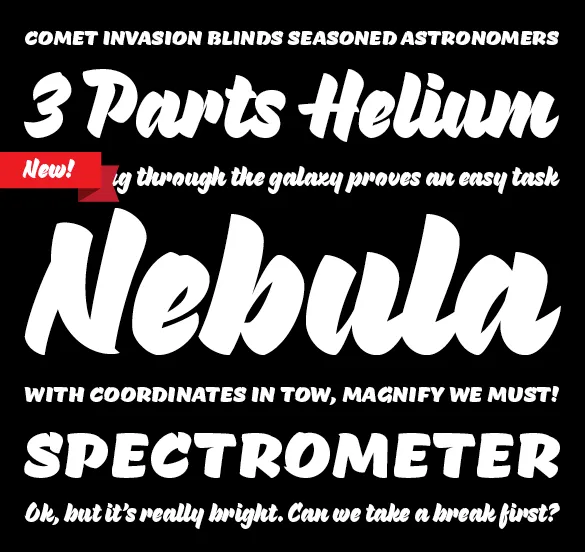
New Release: Pique
It’s summer here in Minneapolis and we’re celebrating with our newest release Pique! Combining the energetic elements of a brush script with the cool rationalization of digital beziers, Pique is a single weight display face overflowing with typographic personality.